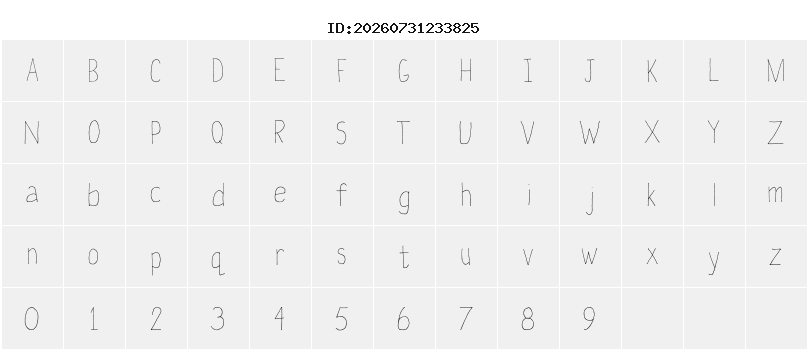
Later On Preview
• Font Name: Later On
• Full Font Name: Later On
About Later On.ttf
Later On.ttf is a modern, elegant sans-serif font designed for ultimate readability and visual harmony. Perfect for branding, headlines, web design, and print materials.